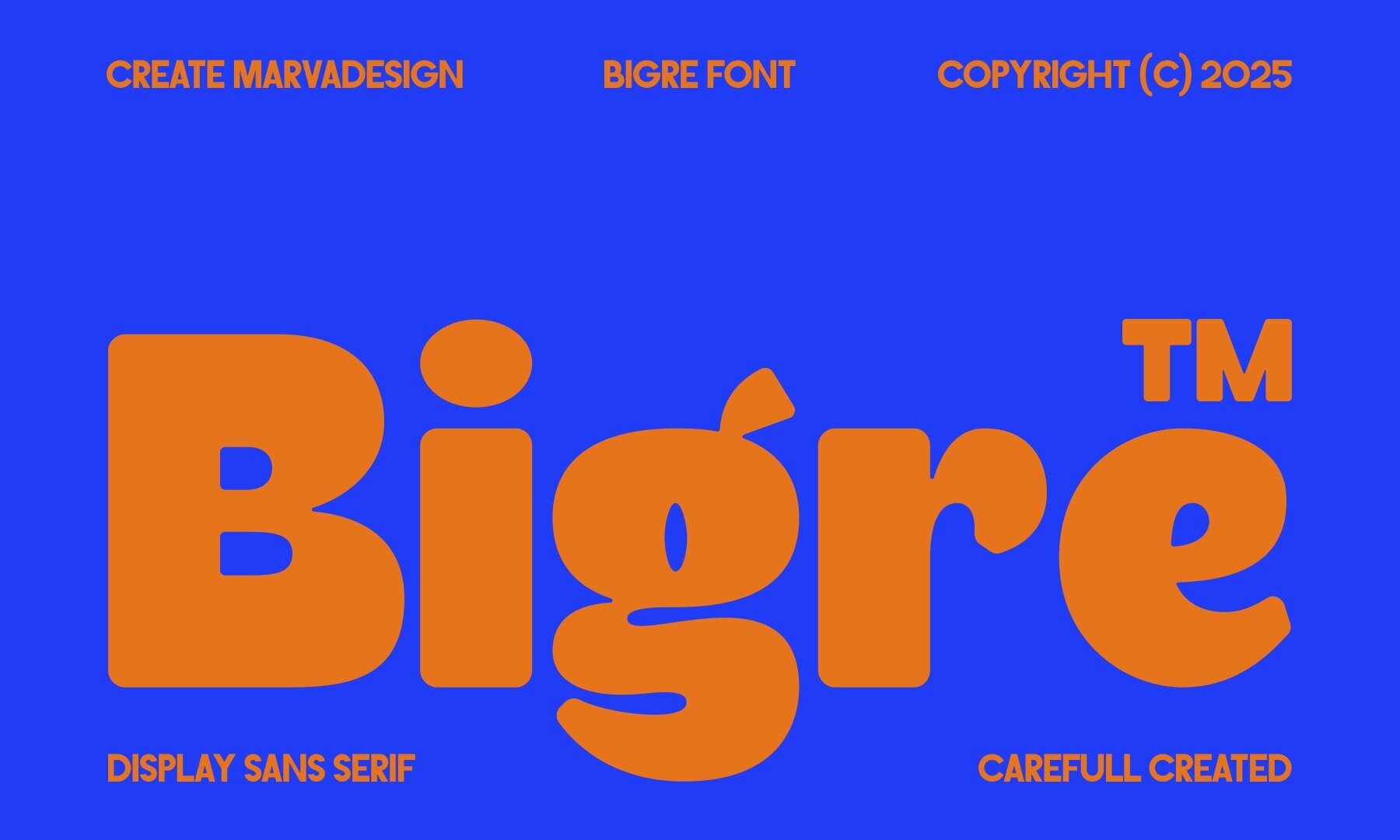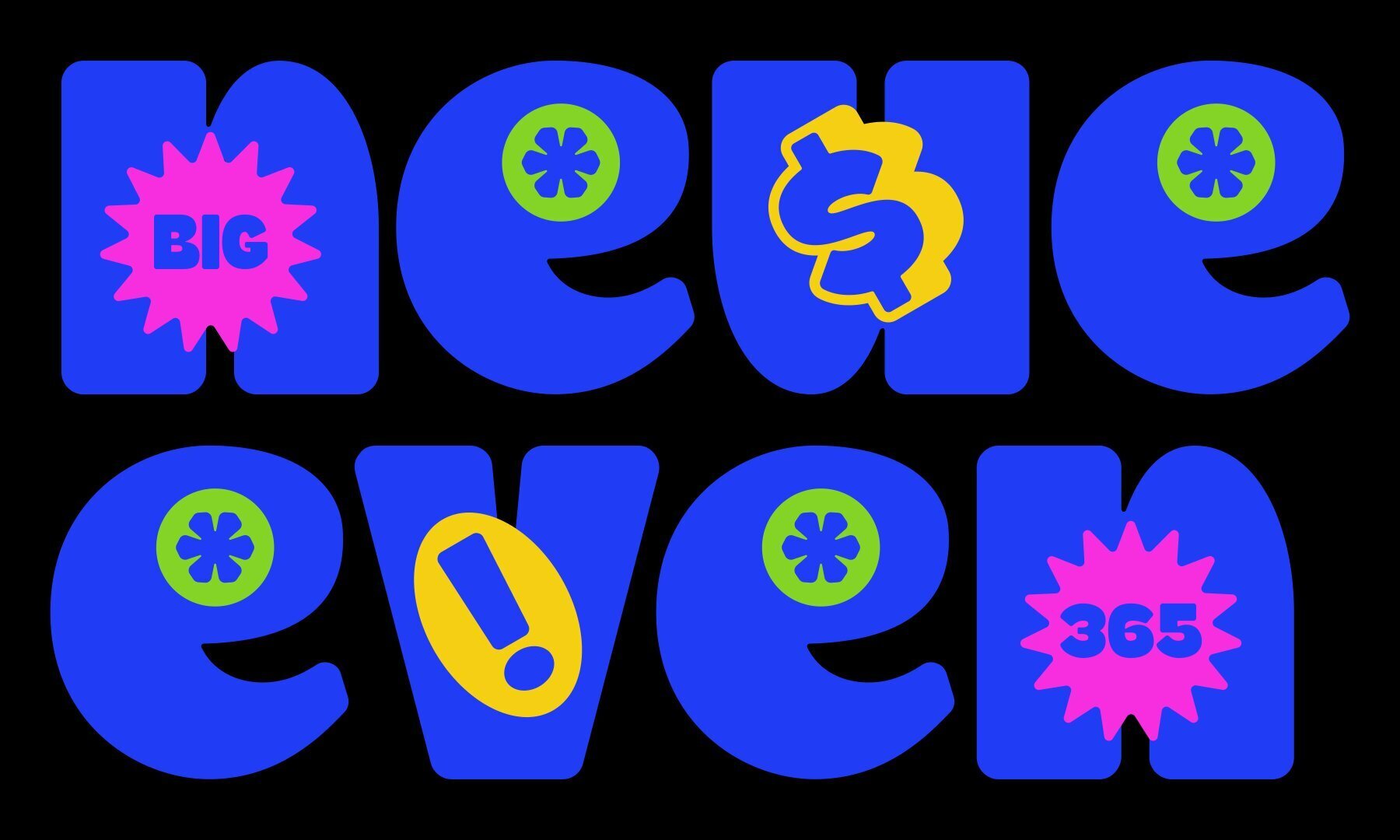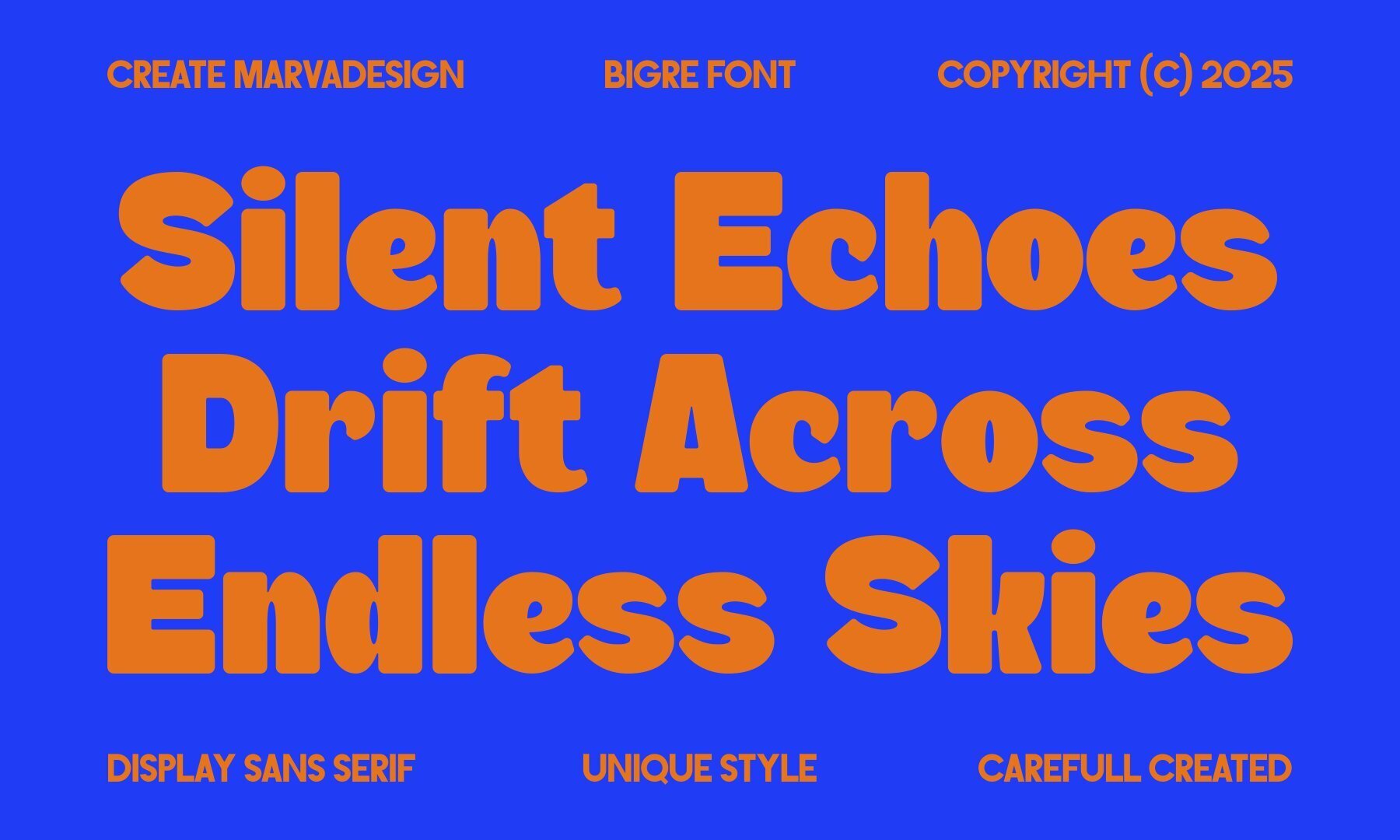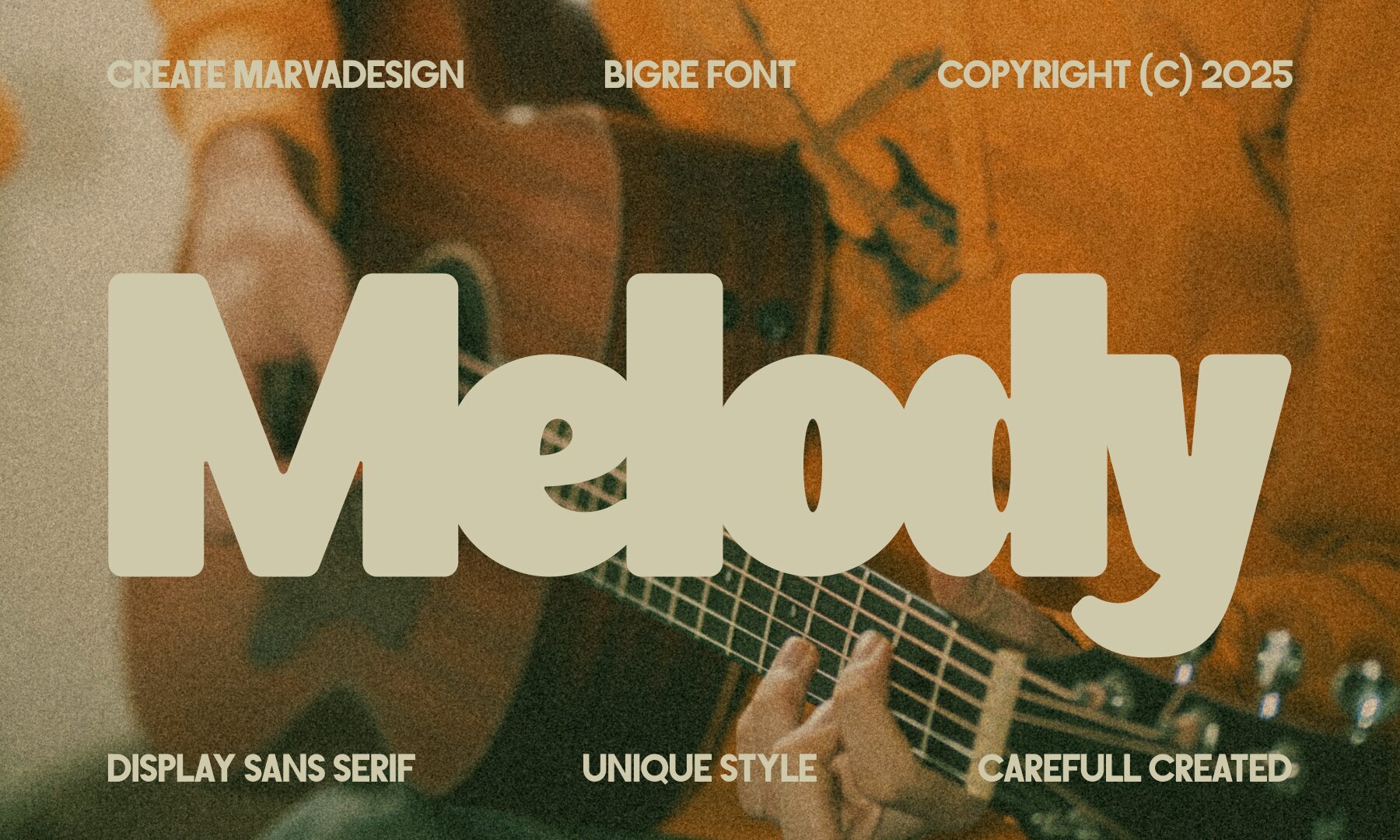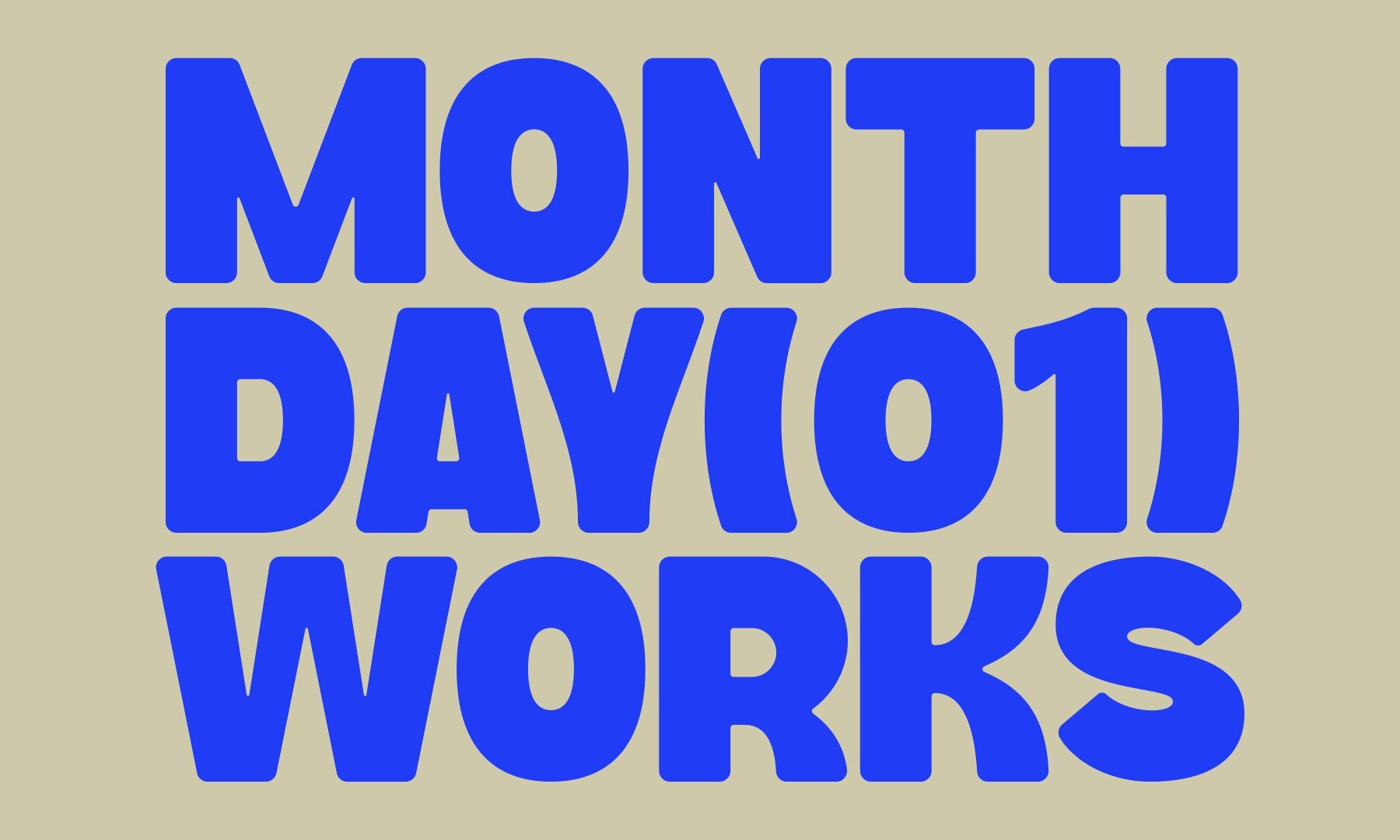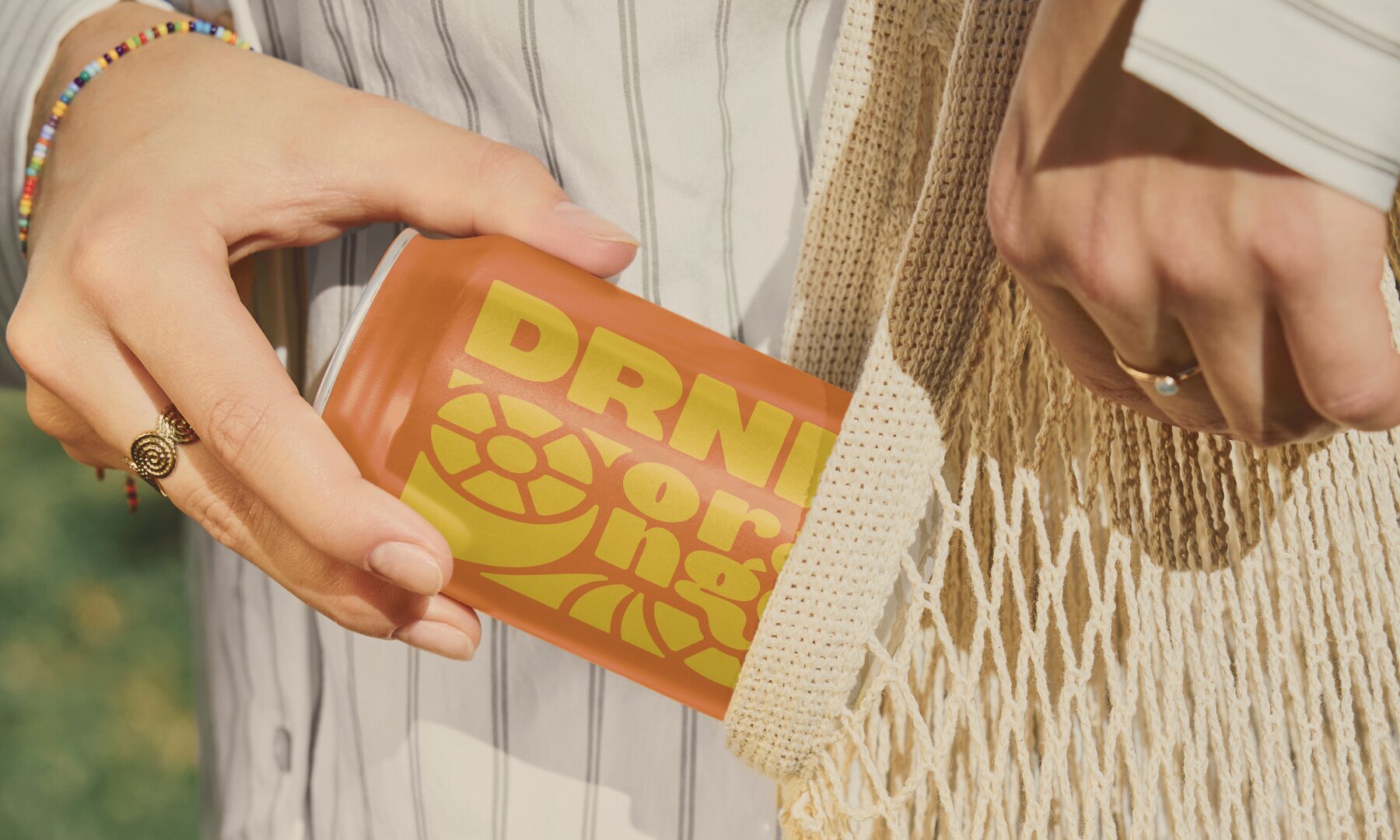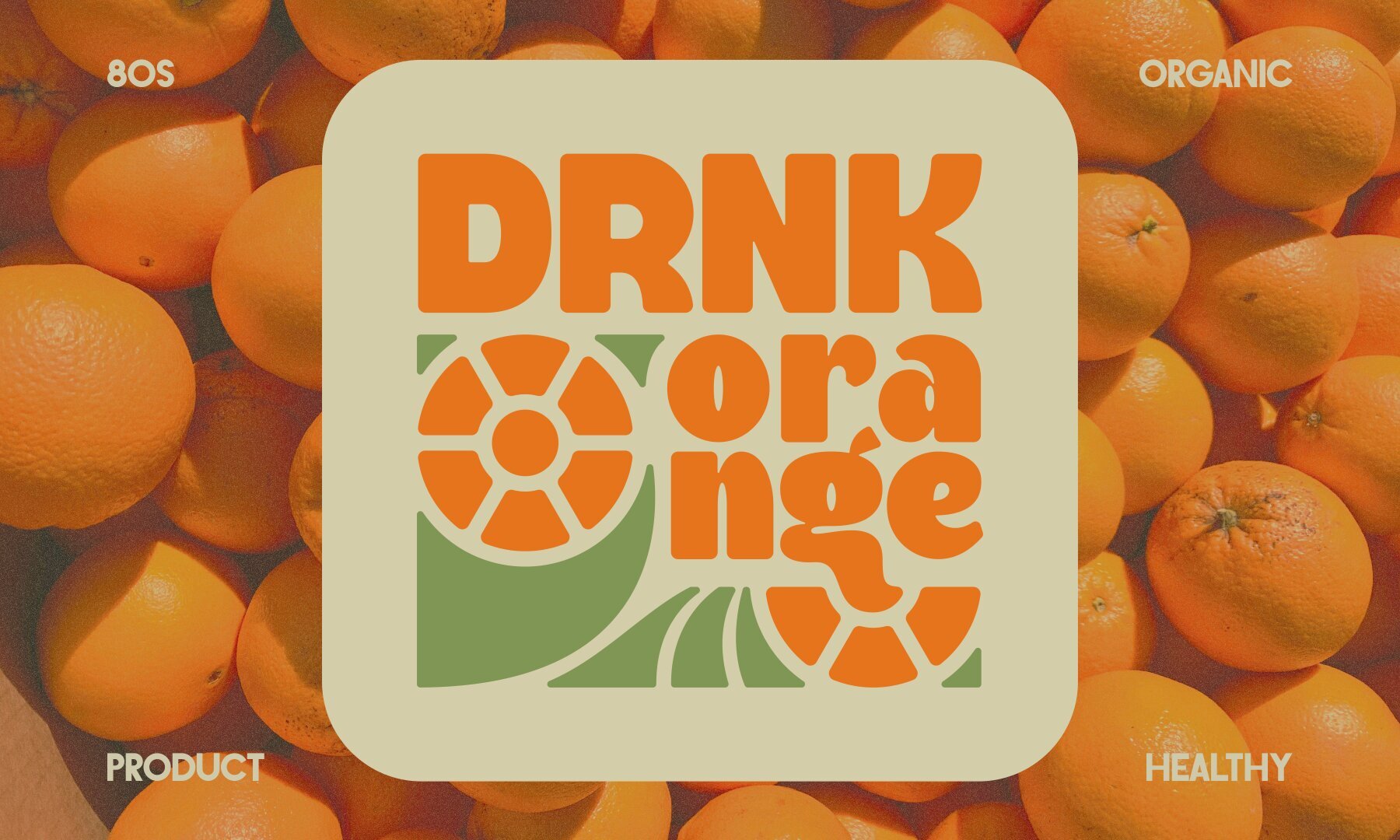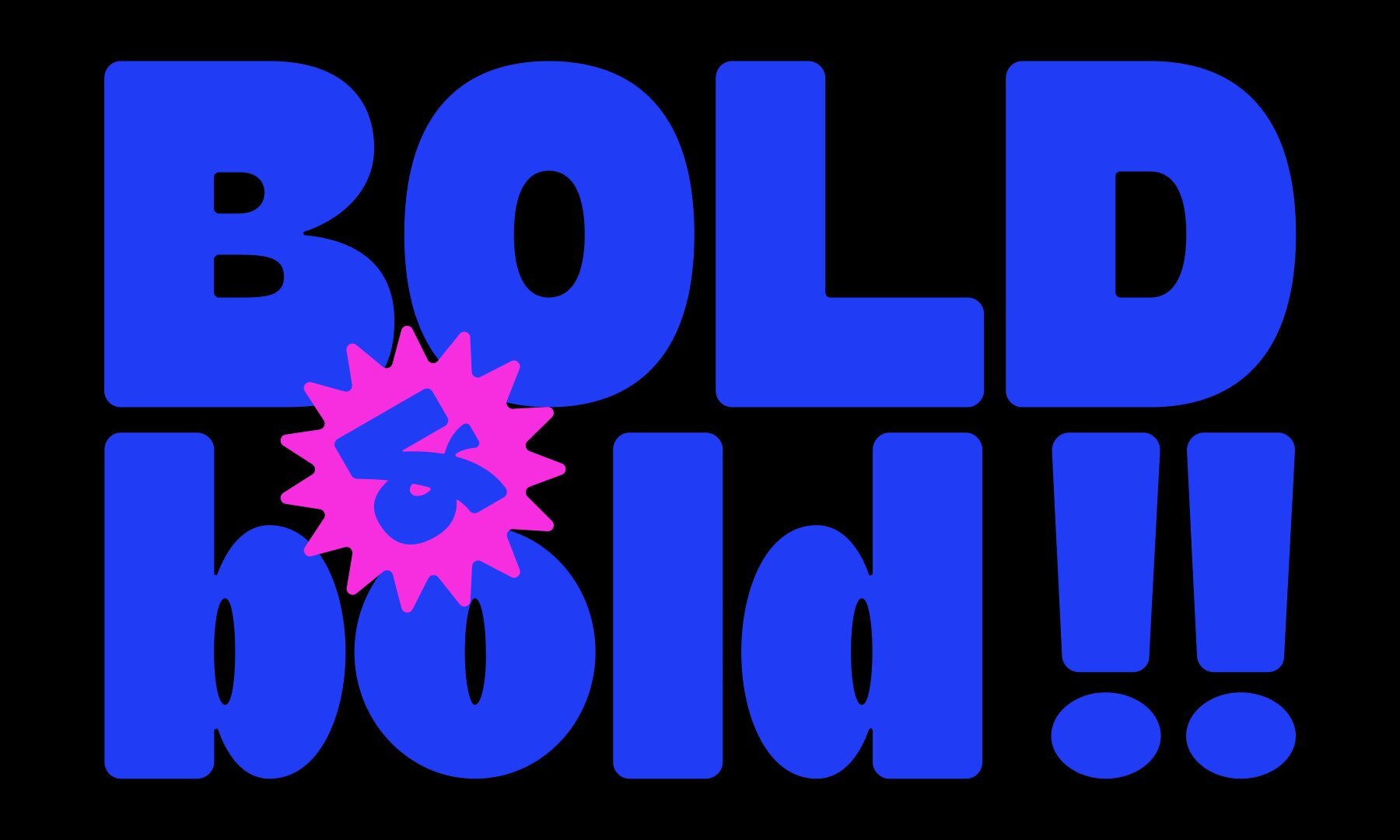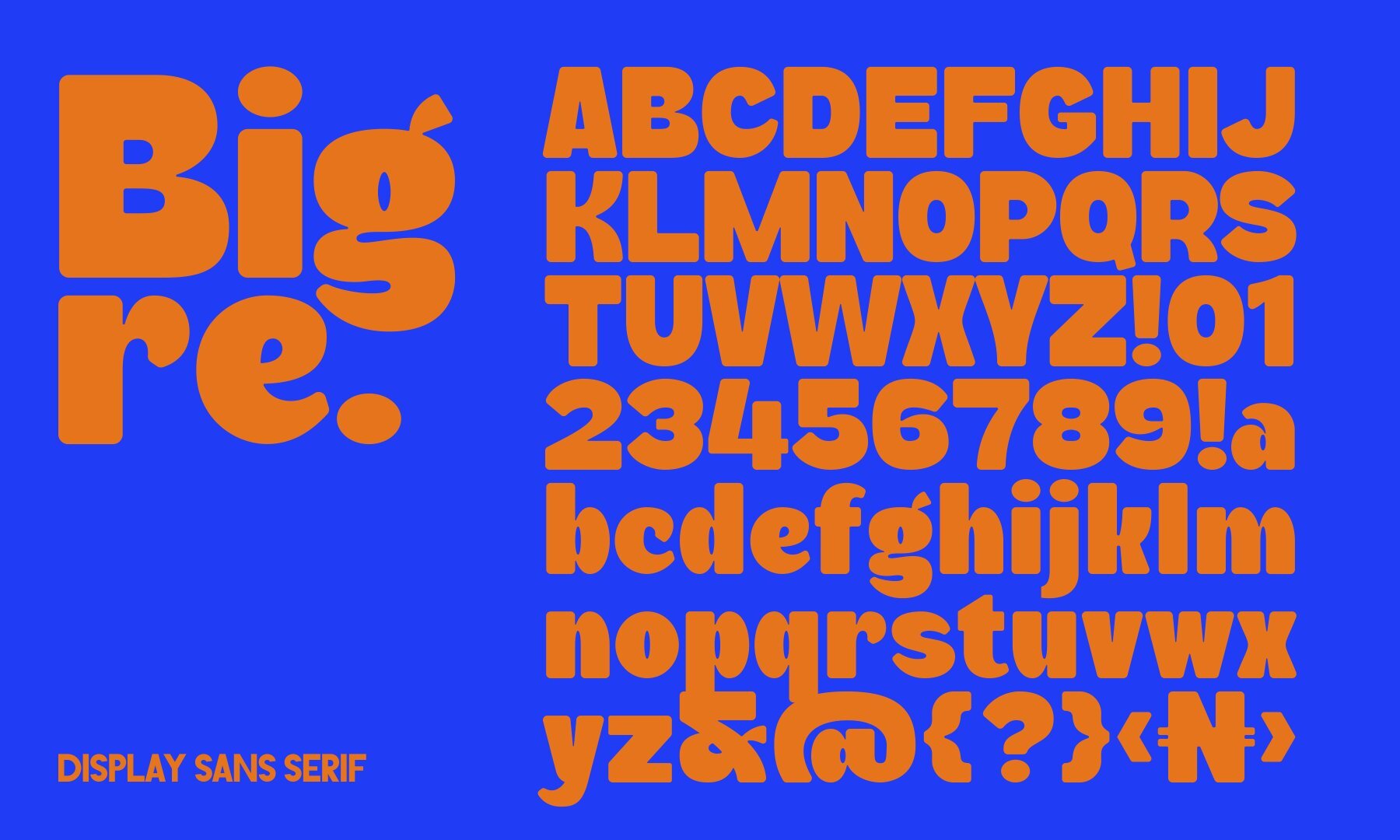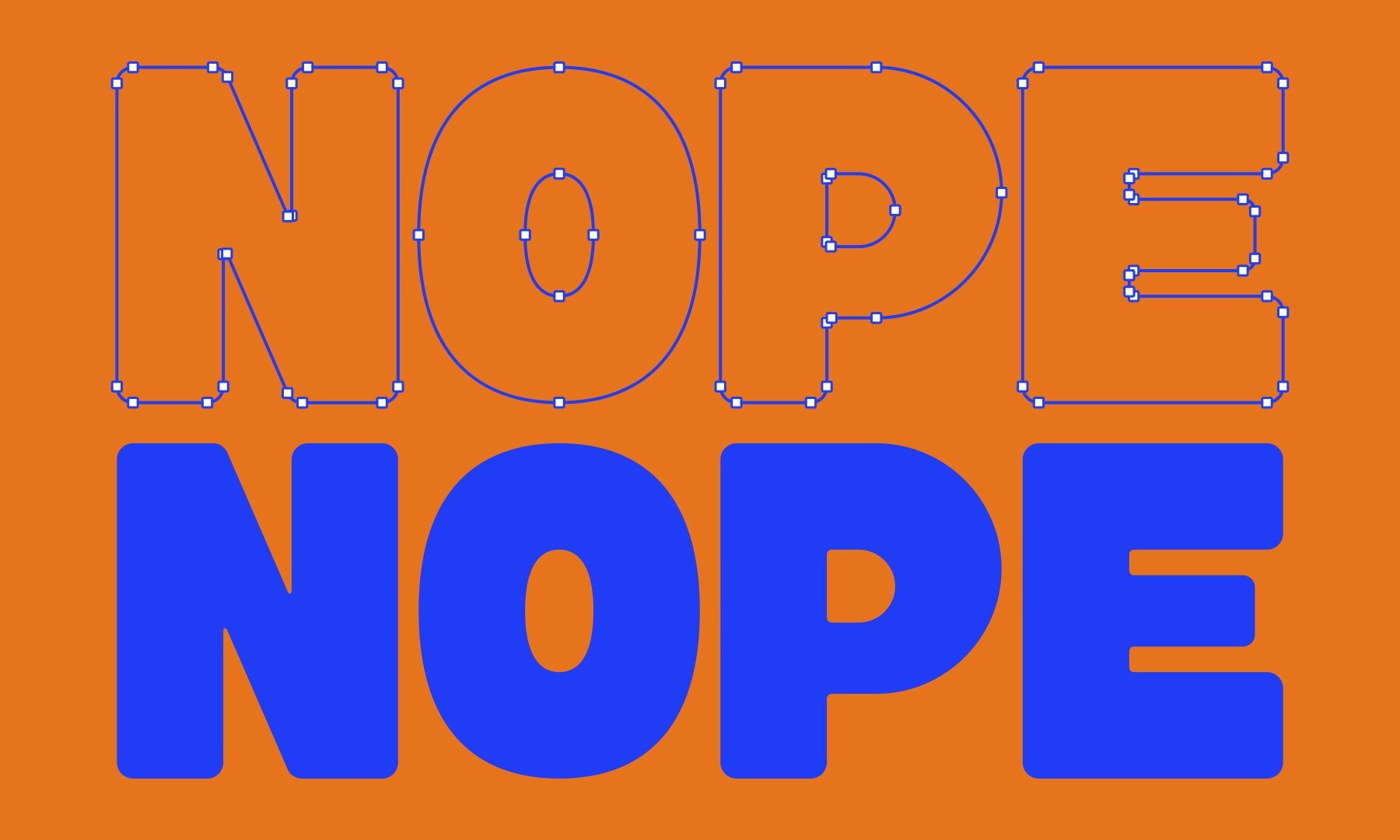
Bigre Font
Bigre
The Bigre typeface combines graphically substantial elements with a sense of playful charm, conveying both power and approachability. Named after the blend of 'Big' and 'Ogre,' it embodies a robust presence with its exaggerated terminal and rounded counters. This visually striking font is well-suited to capture attention in display settings, adding a lively touch to any project.Bigre: Bold Display Sans Serif with Character